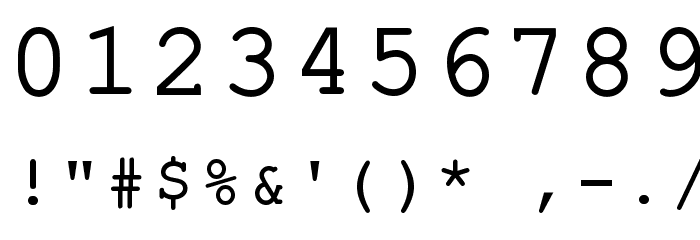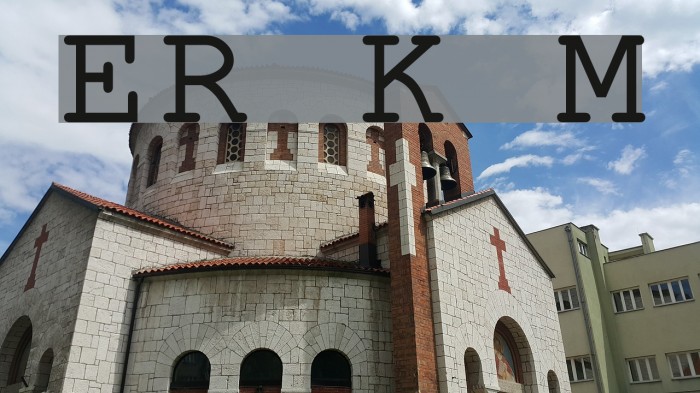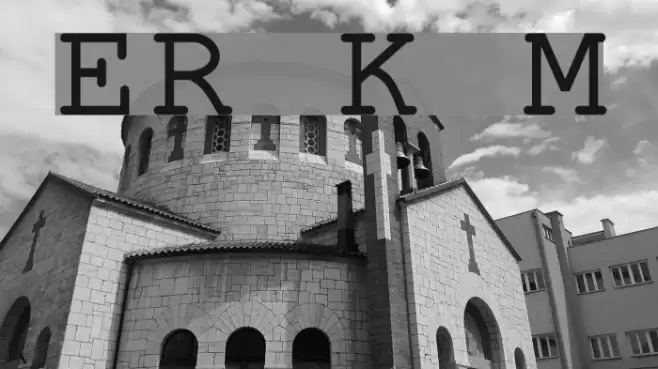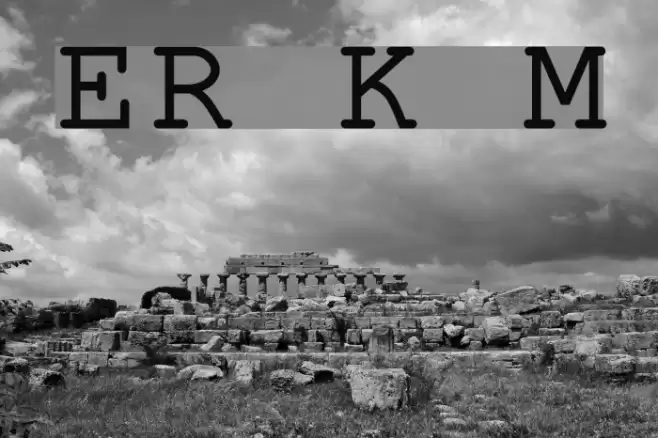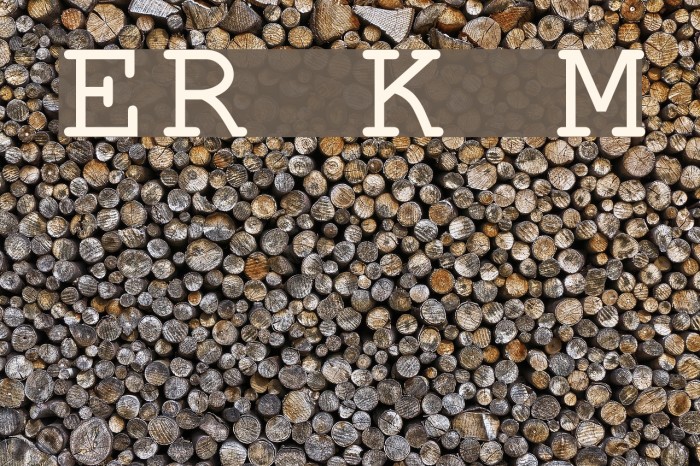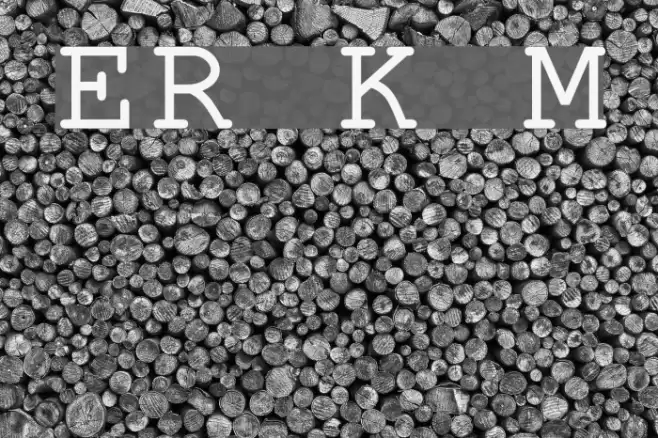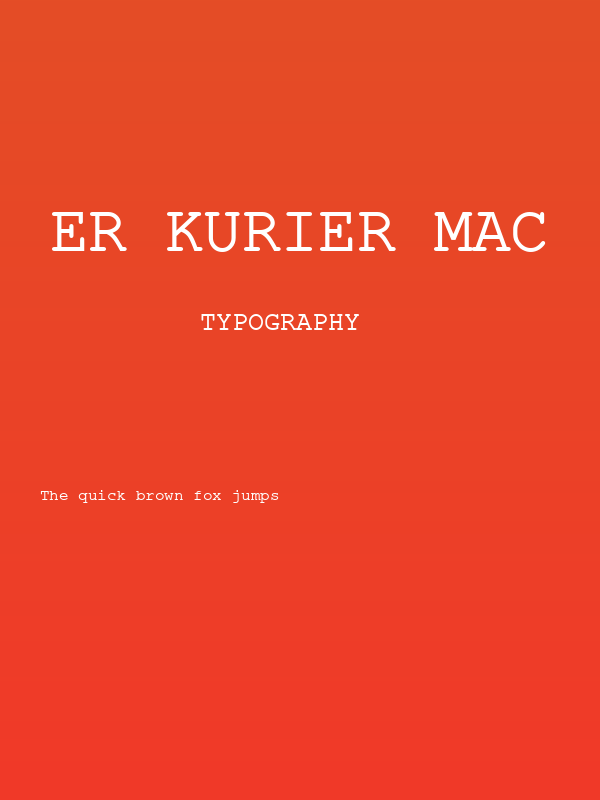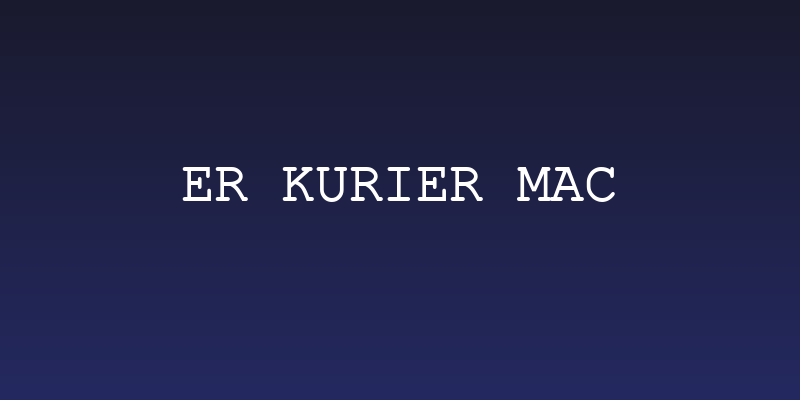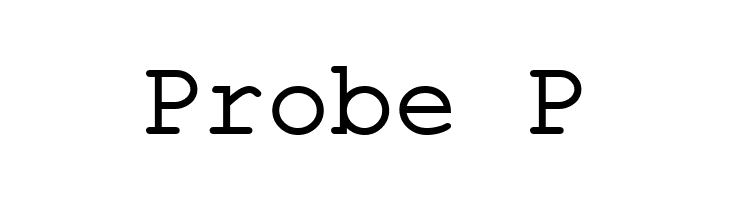
ER Kurier Mac Font
ER Kurier Mac Description
This typeface features a monospaced design with a clean and structured appearance. Each character is evenly spaced, providing a uniform and orderly look. The strokes are consistent in width, offering a medium contrast that enhances readability. The font includes both uppercase and lowercase letters, numerals, and a variety of special characters, making it versatile for different applications. Its simplicity and clarity make it suitable for technical documents, coding, and any context where precision and legibility are paramount.